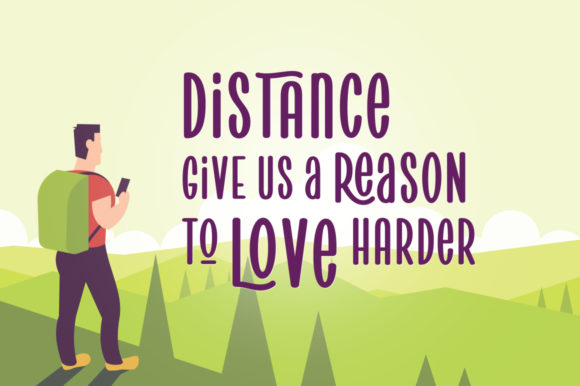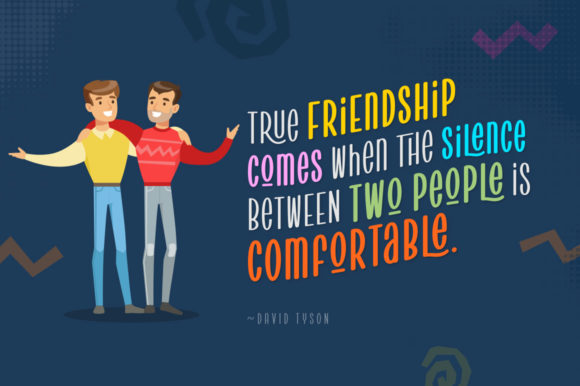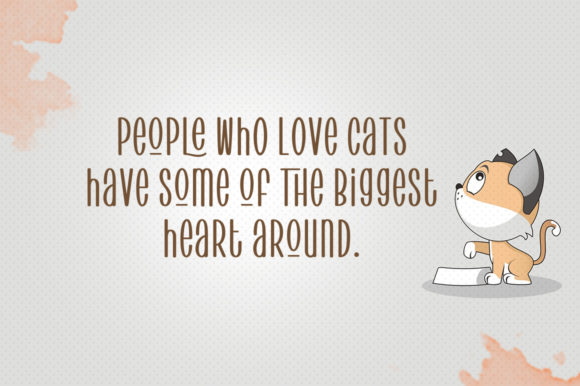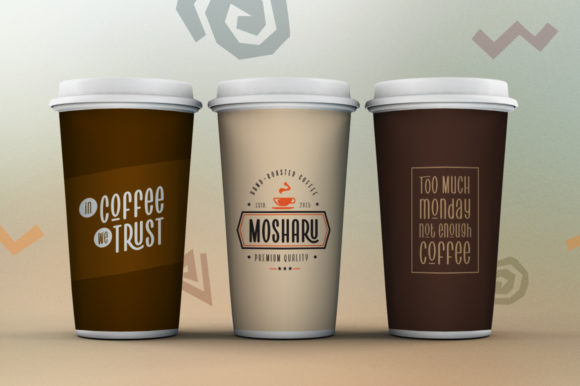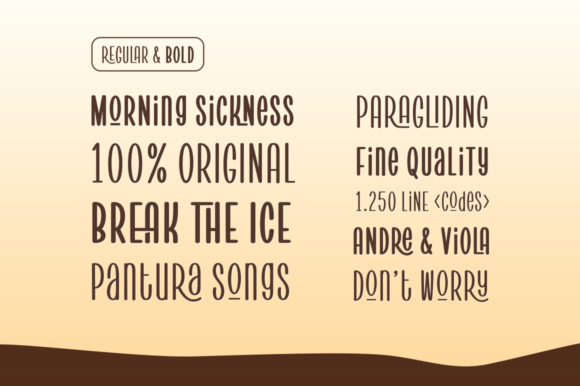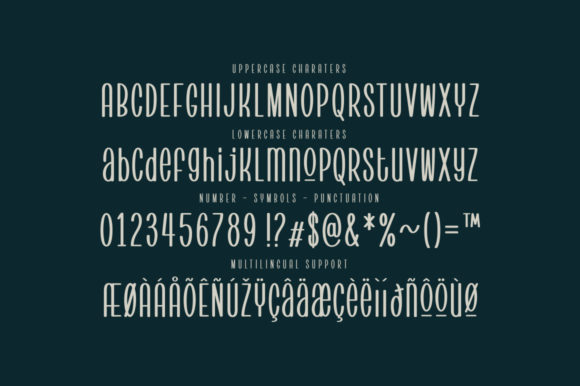
Introduction to Pantura Font
Pantura is an incredibly modern and fun display font with great legibility.
Use it to add a smart feel to any design project .
Key Features of Pantura Font